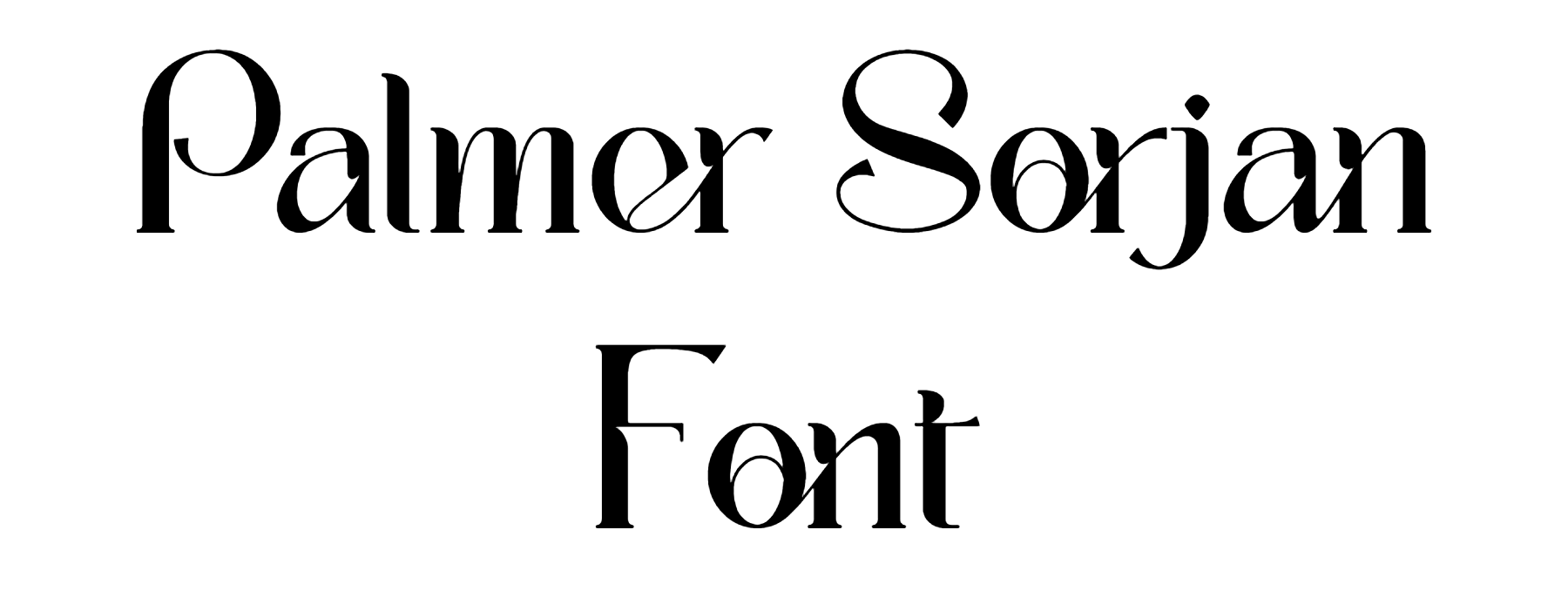
Palmer Sorjan
Palmer Sorjan is a serif font designed by Ahmad Muslimin and published by Koplexs Studio. It has the traditional, bookish feel of type you see in novels, newspapers and long-established brands. You can download it for free and test it with your own words in the preview above.
- Extra characters: 71 copy-and-paste alternates (Private Use Area)
You get every letter from A to Z in both cases and all the numbers from 0 to 9, which means Palmer Sorjan can handle full sentences, dates and prices. Common punctuation such as &, !, ? and @ is included as well. It also has the accented letters you need for Spanish, French, Portuguese and Italian.
Its 71 alternates are stored as separate characters, so you can copy them from Character Map on Windows or Font Book on a Mac and paste them anywhere, including Cricut Design Space and Canva. Its ligatures switch on by themselves in most design apps: certain letter pairs join into one specially drawn shape.
Designers usually reach for fonts like Palmer Sorjan when they're making book covers, magazine headlines and classic branding. Serif fonts shine in headlines and printed text. For long paragraphs on phones, check that it still reads well at small sizes.